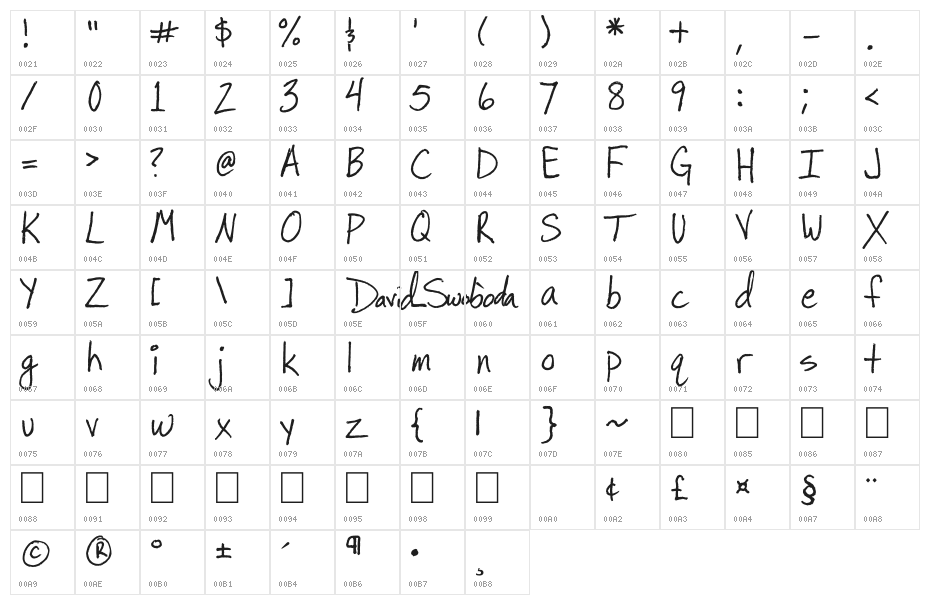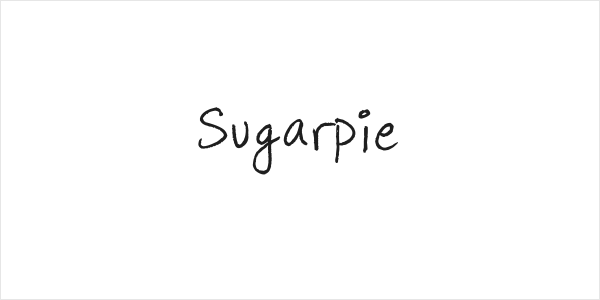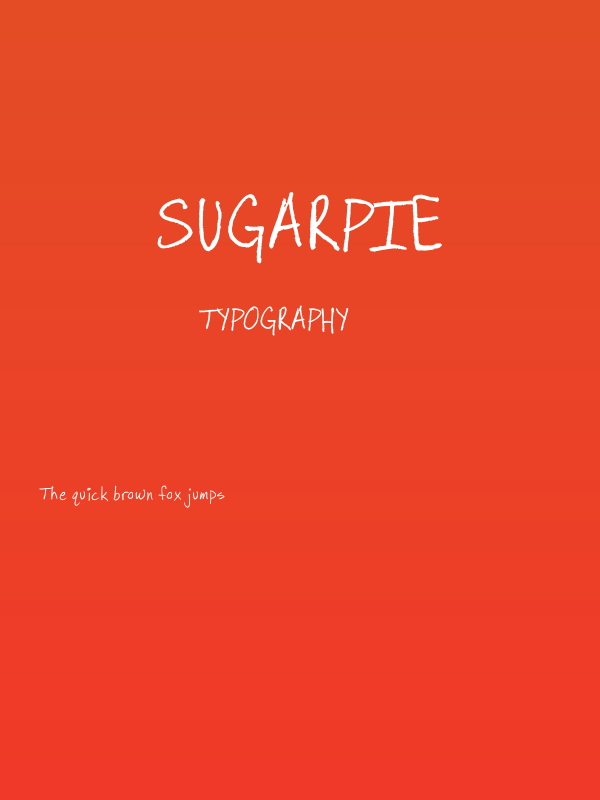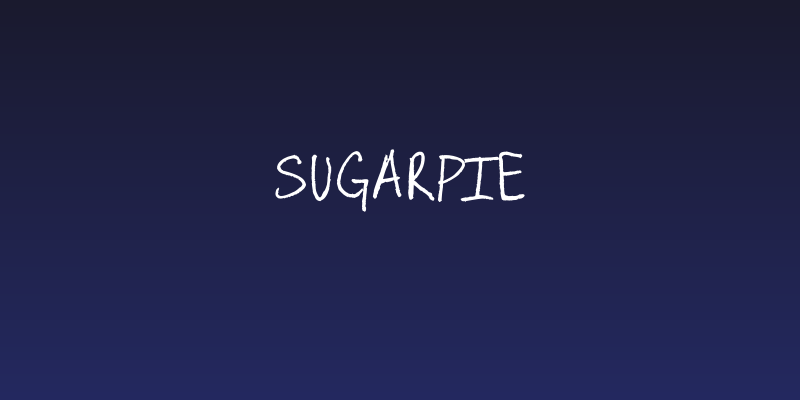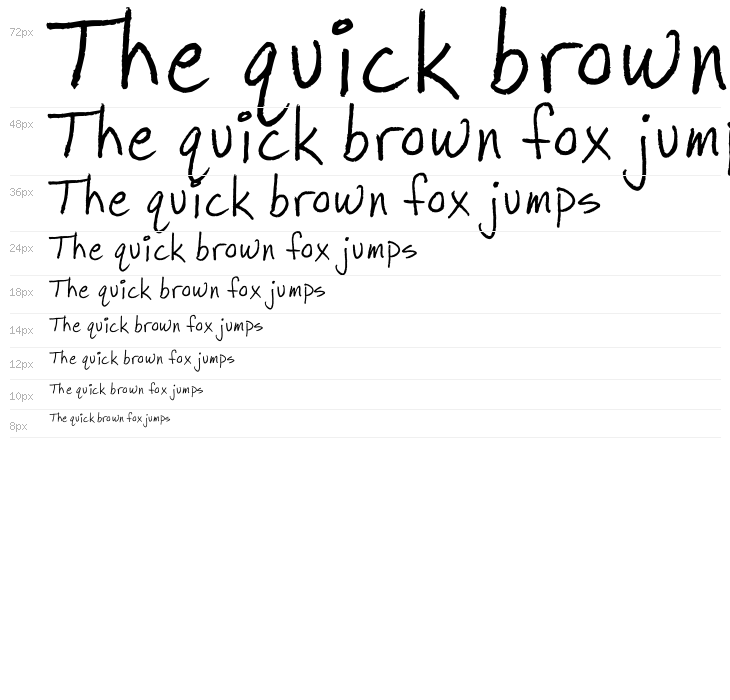
Sugarpie Font
Sugarpie Description
This font exhibits a playful and casual handwritten style, characterized by its uneven strokes and slightly irregular letterforms. The uppercase and lowercase letters maintain a consistent flow, giving it an organic and natural appearance. The numerals and special characters follow the same informal aesthetic, making it suitable for projects that require a personal touch. The overall look is friendly and approachable, with a slight tilt in some characters adding to its charm. The font's unique style makes it stand out, while still being legible and versatile for various design needs.
| Proposed Projects | Ideal for greeting cards, personal invitations, children's books, and casual branding. |